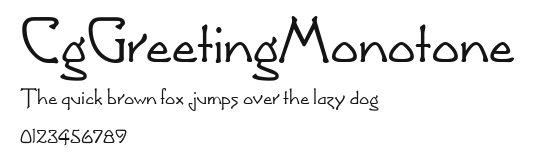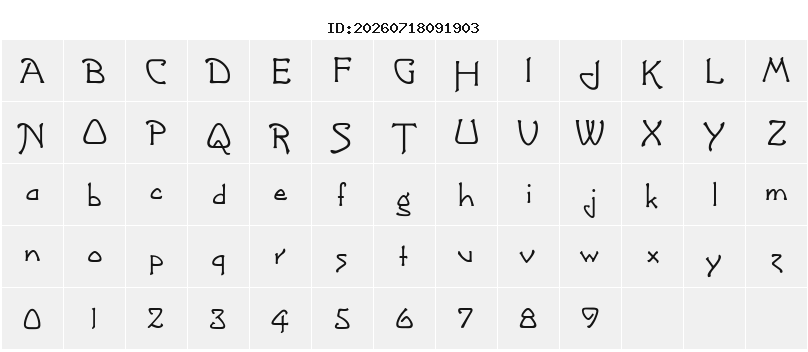
CgGreetingMonotone Preview
About CgGreetingMonotone.ttf
CgGreetingMonotone.ttf is a modern, elegant sans-serif font designed for ultimate readability and visual harmony. Perfect for branding, headlines, web design, and print materials.